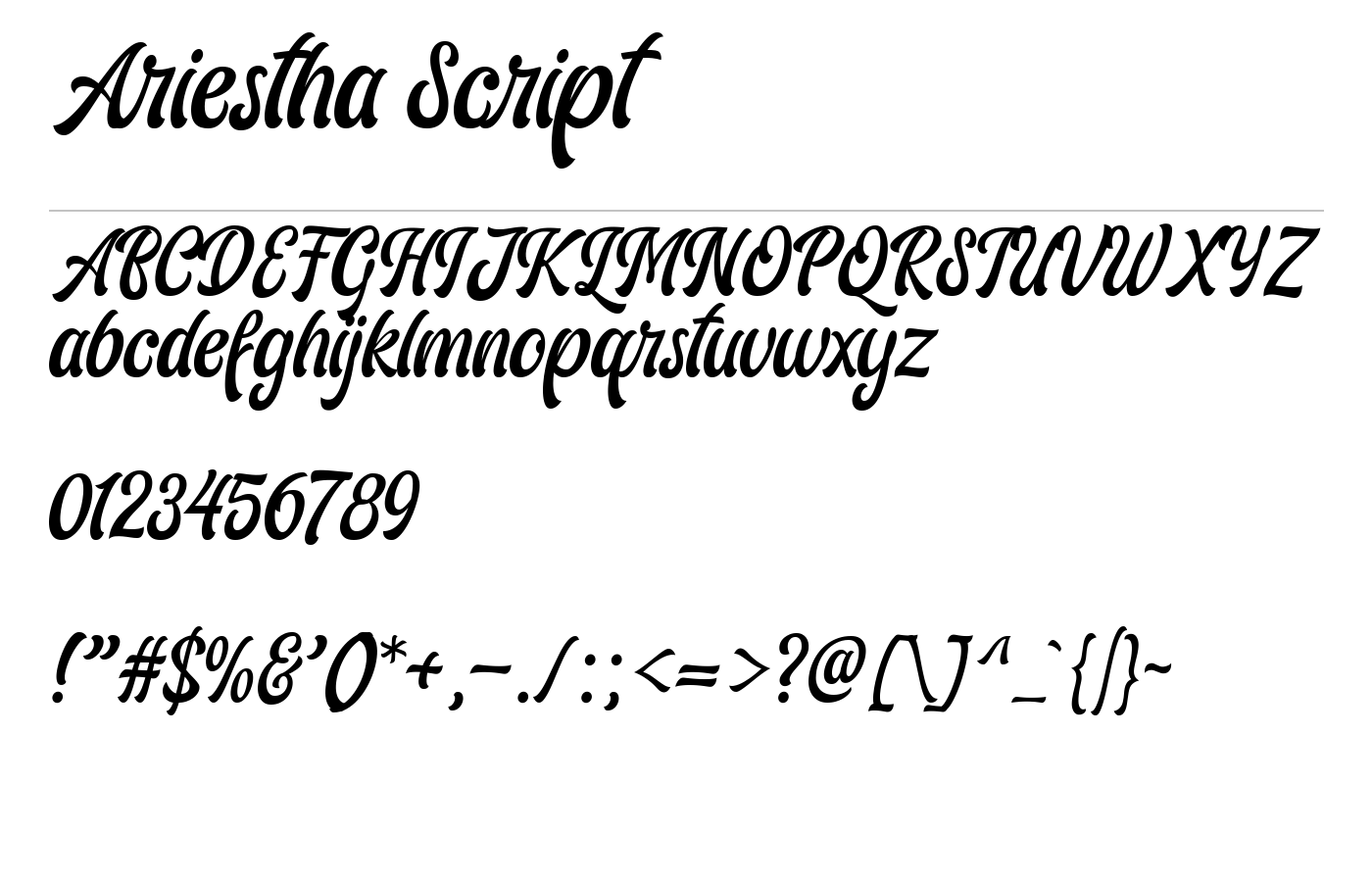
Ariestha Script is an elegant, flowing script font with moderate stroke contrast and smooth curves that convey a sense of sophistication and charm. Its slightly condensed letterforms and lively italics make it perfect for branding, invitations, and stylish headlines where a graceful, personal touch is desired. This font shines in fashion, luxury, and creative projects that want to combine readability with artistic flair.
Ariestha Script Font
About Ariestha Script Font
| Font family | Ariestha Script Font |